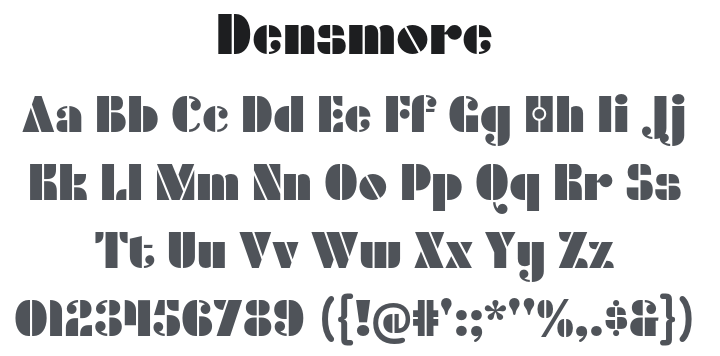
Densmore Font
About Densmore
Densmore is a layered display typeface that blends 1960s rock energy with geometric precision. Its three stackable styles... Regular, Pink, and Blue; can be mixed, offset, or recolored to create vibrant dimensional effects. Smooth Art Deco-inspired curves provide structure, while touches like the mirrored “oo” ligature add personality. Ideal for posters, packaging, and editorial design, Densmore transforms headlines into rhythmic compositions. Equal parts retro and modern, it invites creative layering and bold experimentation for work that demands visual punch and individuality.